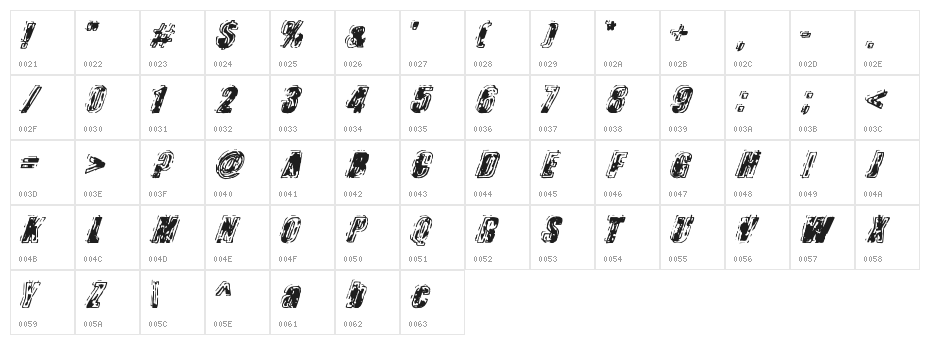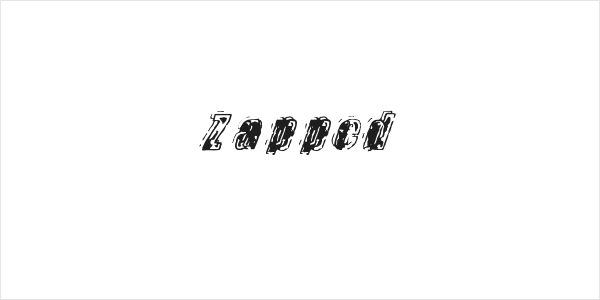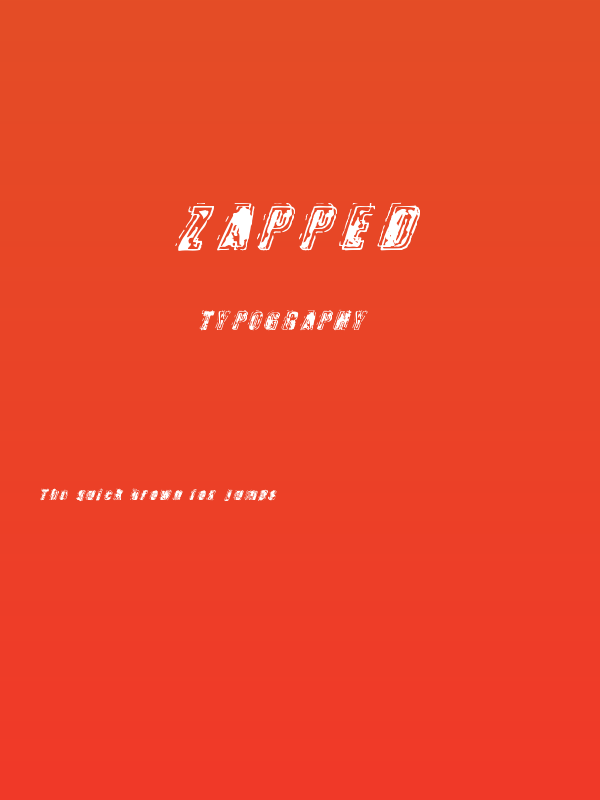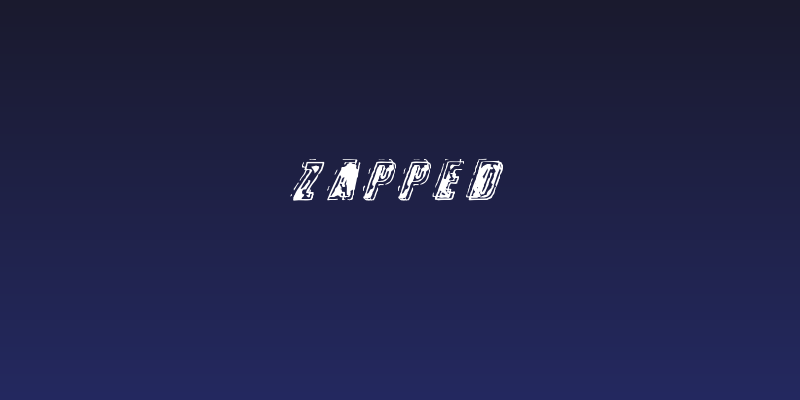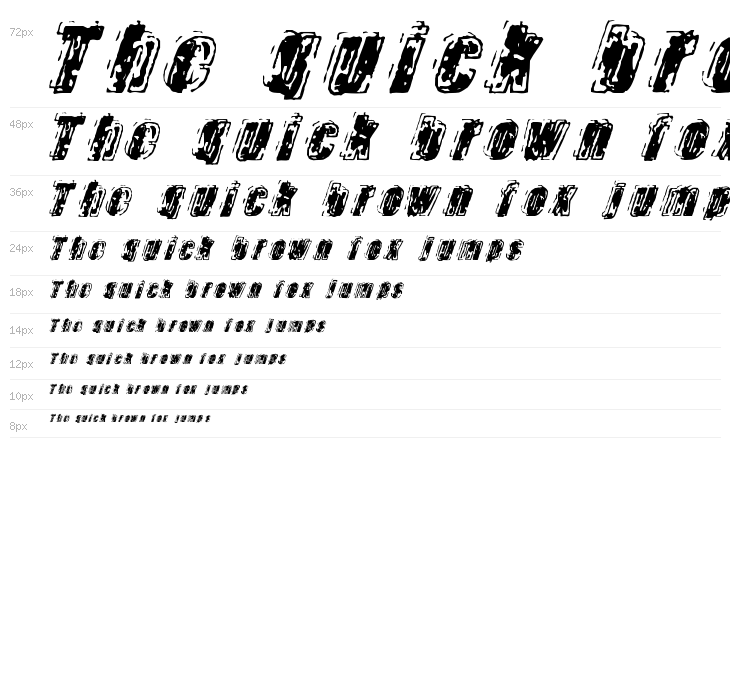
Zapped Font
Zapped Description
This font features a bold and dynamic style with a distressed, grunge-like appearance. The characters are heavily stylized with irregular edges and a textured look that gives an impression of movement and energy. The uppercase and lowercase letters maintain a consistent design, with each character appearing as if it has been eroded or splattered with ink. The numbers and special characters follow the same aesthetic, ensuring a cohesive look across all glyphs. This font is ideal for projects that require a strong, impactful visual statement, such as posters, album covers, or edgy branding materials.
| Proposed Projects | Ideal for posters, album covers, edgy branding, and any project needing a strong visual impact. |